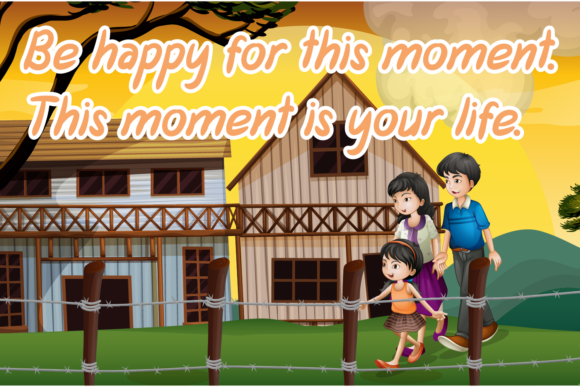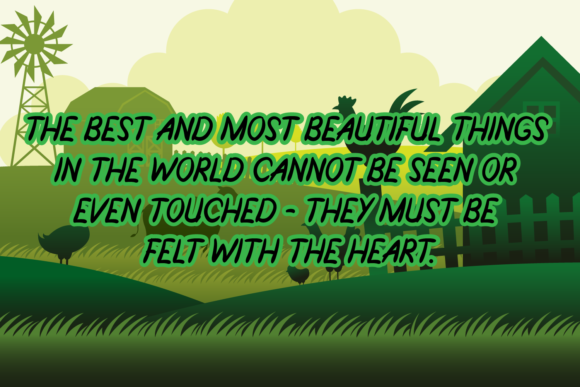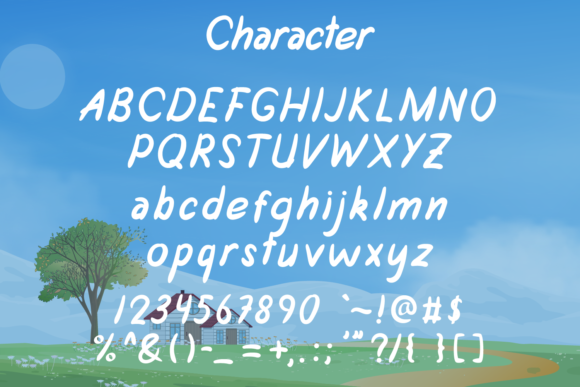
Introducing Blue Farmhouse Font: The Perfect Addition to Your Design Arsenal
Are you a designer or crafter looking for a font that adds a touch of whimsy and charm to your creations? Look no further than the Blue Farmhouse Font. This adorable display font is perfect for anyone who wants to infuse their designs with a sense of playfulness and fun. In this article, we’ll dive into the world of Blue Farmhouse Font, exploring its features, uses, and benefits.
What is Blue Farmhouse Font?
Blue Farmhouse Font is a cute and charming display font designed to bring a smile to your face. Its unique and quirky style makes it an excellent choice for a wide range of design projects, from cartoon-related designs to children’s games and more. Whether you’re creating a logo, a poster, or a digital graphic, Blue Farmhouse Font is sure to add a lovely touch to your work.
Key Features of Blue Farmhouse Font
- Cute and Charming Design: Blue Farmhouse Font boasts a delightful design that’s sure to capture the hearts of your audience. Its rounded edges and playful style make it perfect for designs that require a friendly and approachable feel.
- Highly Versatile: This font is incredibly versatile, making it suitable for a wide range of design projects, from digital graphics to print materials.
- Easily Readable: Despite its playful style, Blue Farmhouse Font is highly legible, ensuring that your message is conveyed clearly and effectively.
- Perfect for Kids’ Designs: The font’s whimsical design makes it an excellent choice for children’s games, educational materials, and other kid-friendly projects.
Uses of Blue Farmhouse Font
Blue Farmhouse Font is an incredibly versatile font that can be used in a variety of design projects, including:
- Cartoon-related designs: Add a playful touch to your cartoon characters, logos, and graphics with this delightful font.
- Children’s games and educational materials: Create engaging and fun designs for kids with Blue Farmhouse Font.
- Logos and branding: Use this font to create a unique and memorable logo for your business or brand.
- Posters and flyers: Add a touch of whimsy to your promotional materials with Blue Farmhouse Font.
- Digital graphics and social media posts: Use this font to create eye-catching graphics and social media posts that are sure to grab attention.
Benefits of Using Blue Farmhouse Font
So, why should you choose Blue Farmhouse Font for your design projects? Here are just a few benefits:
- Unique and Memorable: This font is sure to make your designs stand out from the crowd and leave a lasting impression on your audience.
- Easy to Use: Blue Farmhouse Font is incredibly easy to use, even for those with limited design experience.
- Time-Saving: With Blue Farmhouse Font, you can create professional-looking designs in no time, saving you time and effort.
Tips for Using Blue Farmhouse Font
To get the most out of Blue Farmhouse Font, here are a few tips to keep in mind:
- Pair with Other Fonts: Experiment with pairing Blue Farmhouse Font with other fonts to create a unique and visually appealing design.
- Use in Combination with Images: Combine this font with high-quality images to create stunning graphics and posters.
- Experiment with Colors: Don’t be afraid to try out different color schemes to find the perfect match for your design.
Blue Farmhouse Font is a charming and versatile display font that’s perfect for designers and crafters looking to add a touch of whimsy to their creations. With its cute and playful design, high legibility, and ease of use, this font is sure to become a staple in your design arsenal. Whether you’re working on a cartoon-related project, a children’s game, or simply want to add some personality to your designs, Blue Farmhouse Font is an excellent choice.